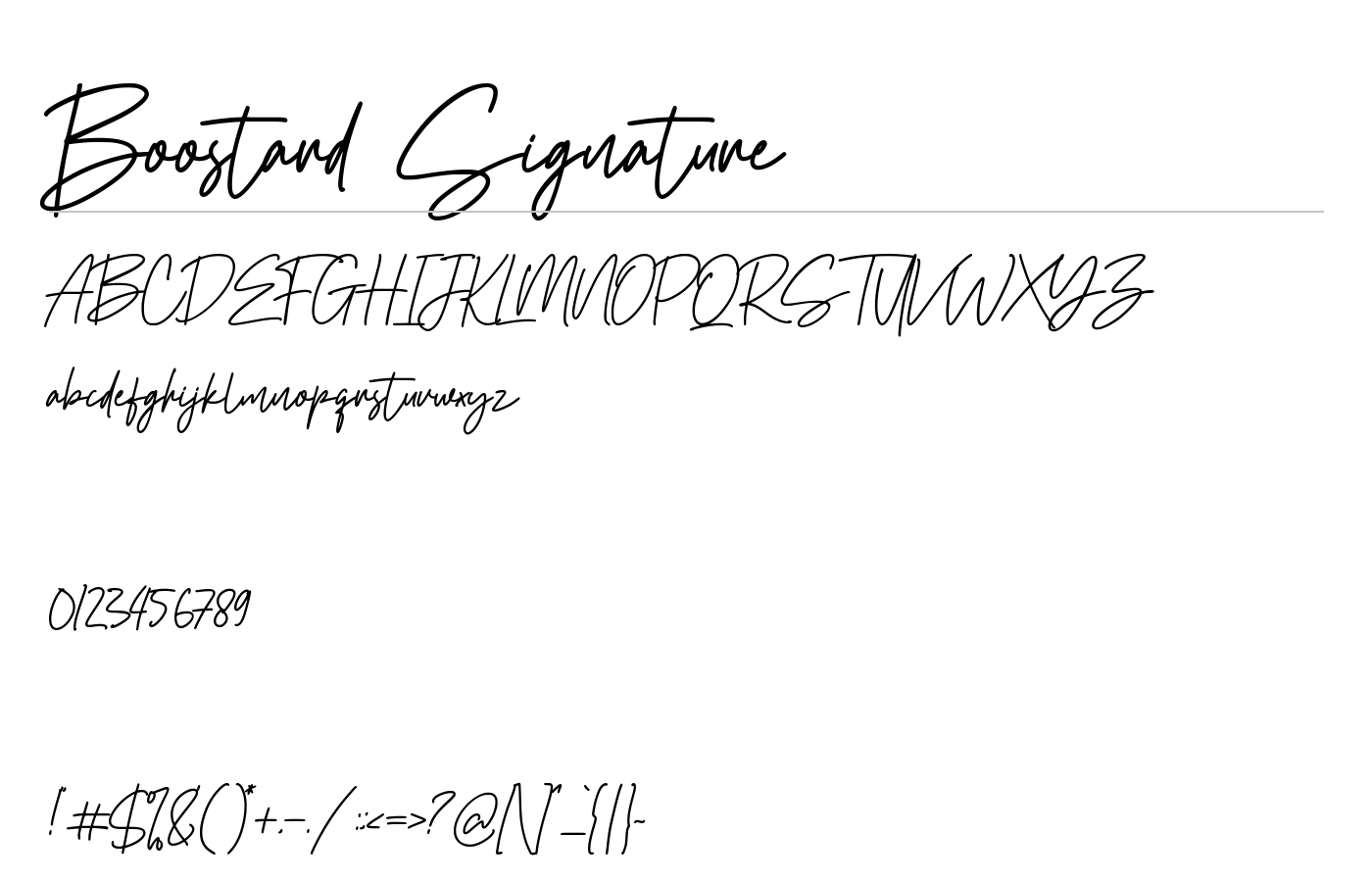
Boostard Signature is a delicate, handwritten script font with a casual yet elegant feel, featuring thin, flowing strokes and a slightly uneven, natural rhythm that mimics authentic handwriting. Its tall, slender letterforms and smooth connections make it perfect for personal branding, invitations, and stylish logos where a touch of sophistication and individuality is desired. This font shines in projects that seek to convey warmth and a modern, creative vibe with a refined signature look.
Boostard Signature Font
About Boostard Signature Font
| Font family | Boostard Signature Font |
| Designer | Green Adventure Std. 2021 |